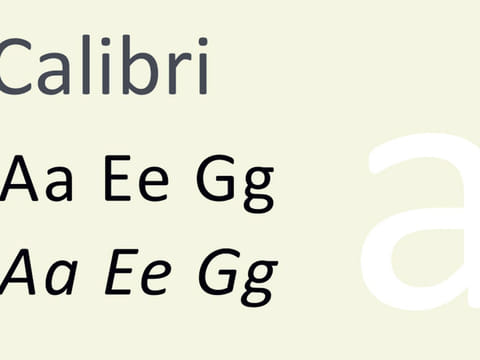
PM’s daughter Maryam Nawaz used typeface to forge documents about illegal offshore companies
Islamabad: Pakistan Prime Minister Nawaz Sharif, has been forced to leave after he was disqualified from office by the Supreme Court.
A key piece of evidence in the corruption investigation against the prime minister and his children was Microsoft’s Calibri font.
The PM’s daughter, Maryam Nawaz, used Calibri to forge documents about illegal offshore companies, Nielsen and Nescoll Limited, which were flagged in the Panama Papers.
The documents submitted by Maryam Nawaz — purportedly created in 2006 — were typed in the Calibri font.
But there was only one problem.
The font wasn’t publicly available to computer users worldwide until 2007, according to the investigation team’s leaked report.
This disclosure was made by a British forensic handwriting firm.
The designer of Calibri font, Lucas de Groot, told Pakistani media that he believes that the document signed by Maryam Nawaz was “produced much later [than 2006], when Calibri was the default font in MS Word”.
Calibri font’s first public beta version, according to Wikipedia, was released on June 6, 2006 — four months after the papers were purportedly signed by Maryam Nawaz.
As the Calibri controversy gripped Pakistanis, Wikipedia was flooded with dozens of edit requests to change the release date of the Calibri font, due to which Wikipedia had to prevent further editing.
Saqib Quyyam, a prominent Wikipedia editor in Pakistan, is the one who pushed the ban following numerous attempts to edit the page.
“As of Wikipedia’s counter-vandalism team, I had to ask an administrator to lock the page to restrict any further edits in order to avoid misleading information being spread outside of Wikipedia,” Quyyam told Gulf News.
Wikipedia editors were surprised to find the site at the centre of a major corruption scandal in Pakistan, he said.
“[The] Wikipedia community is truly surprised to learn that Wikipedia has become a part of the fontgate scandal, which could end up toppling the government. We have seen much bigger controversies surrounding the project but this one is most interesting,” Quyyam said.